The text on your pages should help your students, not confuse them. Clear fonts keep kids focused and make your documents look neat and clean. To help you work faster, we chose the top Canva fonts that are very easy to read and perfect for everyday school materials.
Quick Answer
The best Canva fonts for teachers are Poppins, Nunito, Montserrat, KG Primary, Lilita One, League Spartan, Jua, and Abril Fatface. These fonts work well for worksheets, classroom posters, presentations, bulletin boards, and printable resources.
What Makes a Good Teacher Font?
A strong teacher font should do these things:
- Stay easy to read
- Look clear when printed
- Work well on screens
- Match the student age group
- Save time during design
If students struggle to read the text, the font is not the right choice.
Best Canva Fonts for Teachers
| Font Name | Best For | Style | Availability |
| Poppins | Worksheets, Slides | Clean Modern | Free |
| Nunito | Student Handouts | Friendly Rounded | Free |
| Montserrat | Presentations, Notices | Professional Clean | Free |
| KG Primary | Early Learning Sheets | School Style | Free / Varies |
| Lilita One | Posters, Bulletin Boards | Bold Fun | Free |
| League Spartan | Headings, Announcements | Strong Bold | Free |
| Jua | Elementary Posters | Playful Bold | Free |
| Abril Fatface | Creative Titles | Stylish Bold | Free |
| Open Sans | Body Text, Guides | Clear Neutral | Free |
| Raleway | Modern School Graphics | Elegant Clean | Free |
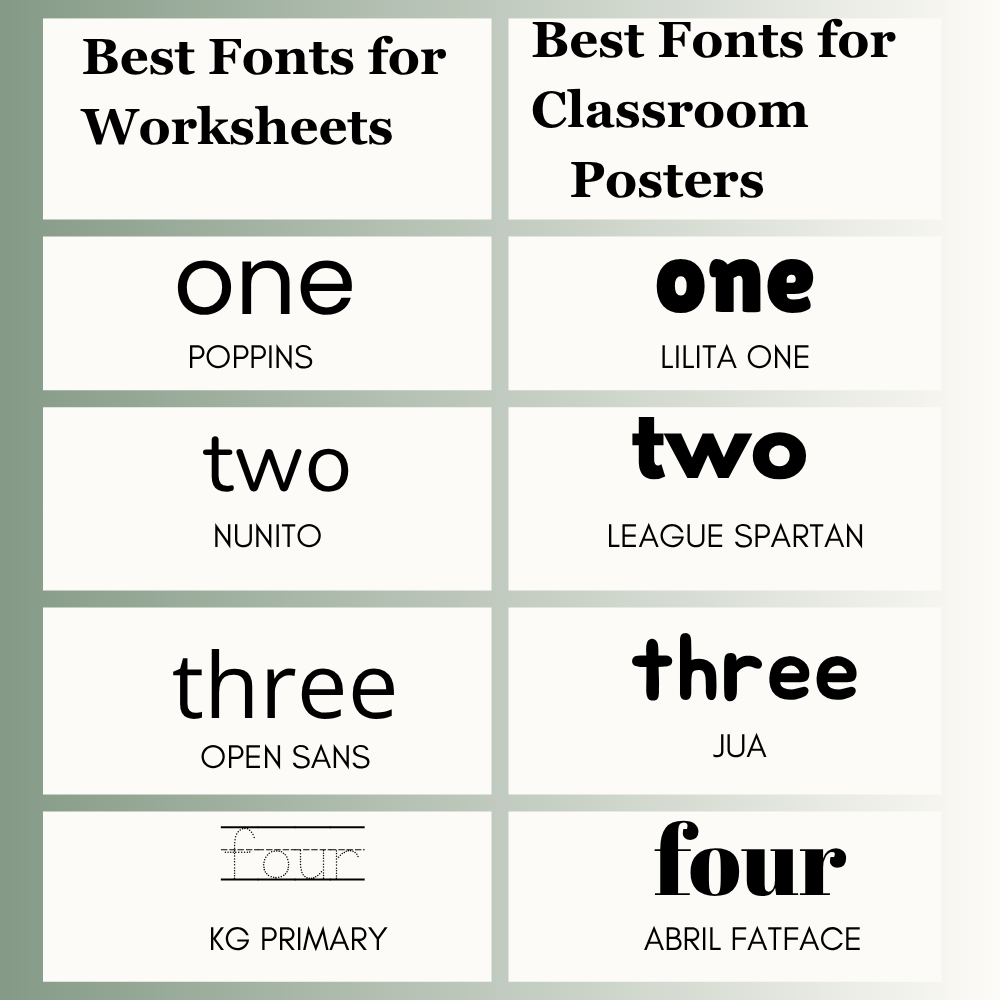
Best Fonts for Worksheets
Worksheets need clear text that students can read quickly. Clean fonts help learners focus on the task instead of struggling with letters.
Best picks:
- Poppins
- Nunito
- Open Sans
- KG Primary
These are strong choices for printables, homework sheets, and class activities.
Best Fonts for Classroom Posters
Posters should be visible from a distance. Bold fonts usually work best.
Best picks:
- Lilita One
- League Spartan
- Jua
- Abril Fatface
Use short titles and large text sizes for better impact.
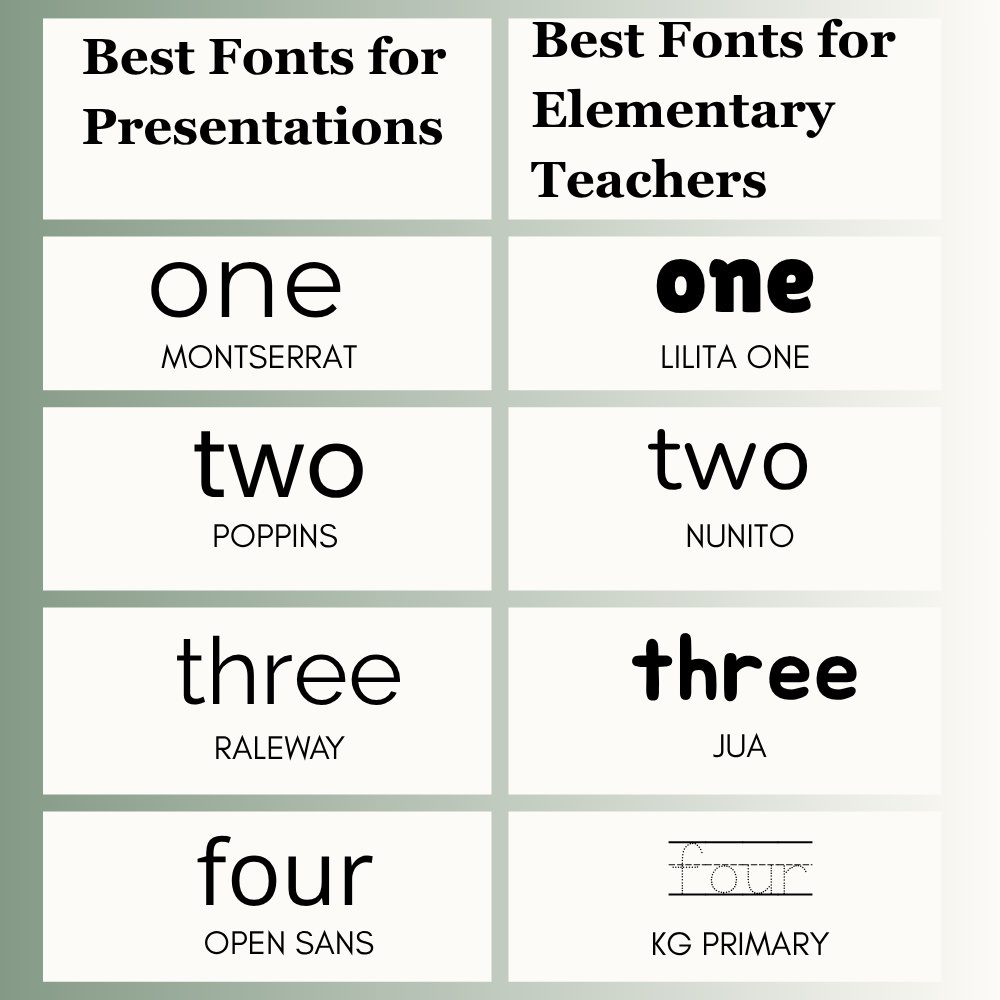
Best Fonts for Presentations
Slides should look neat on projectors, laptops, and smart boards.
Best picks:
- Montserrat
- Poppins
- Raleway
- Open Sans
These fonts help presentations feel clean and professional.
Best Fonts for Elementary Teachers
Young learners respond well to friendly and playful fonts.
Best picks:
- KG Primary
- Jua
- Lilita One
- Nunito
These fonts work well for preschool and primary classes.
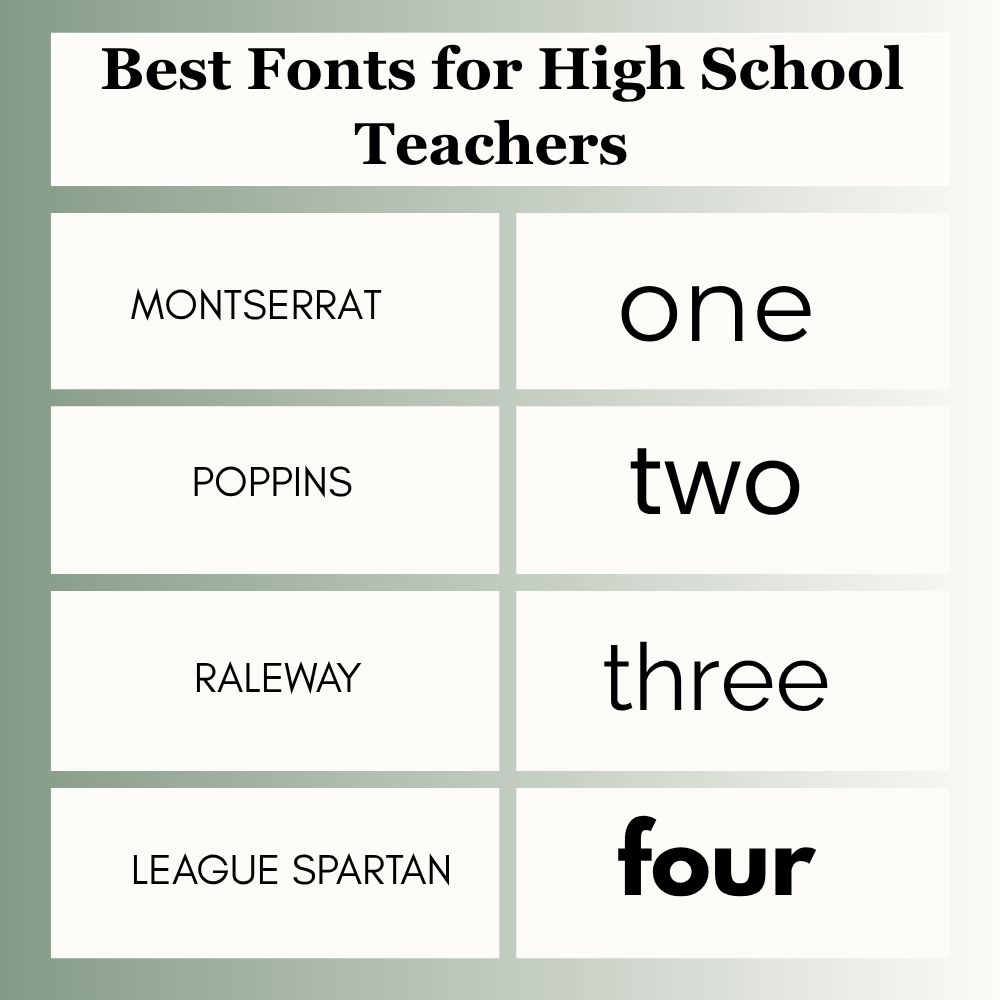
Best Fonts for High School Teachers
Older students usually prefer modern and cleaner styles.
Best picks:
- Montserrat
- League Spartan
- Poppins
- Raleway
These fonts suit academic and formal designs.
If you use Canva Pro, you may see more font options, brand kits, and extra style choices depending on your account and library updates.
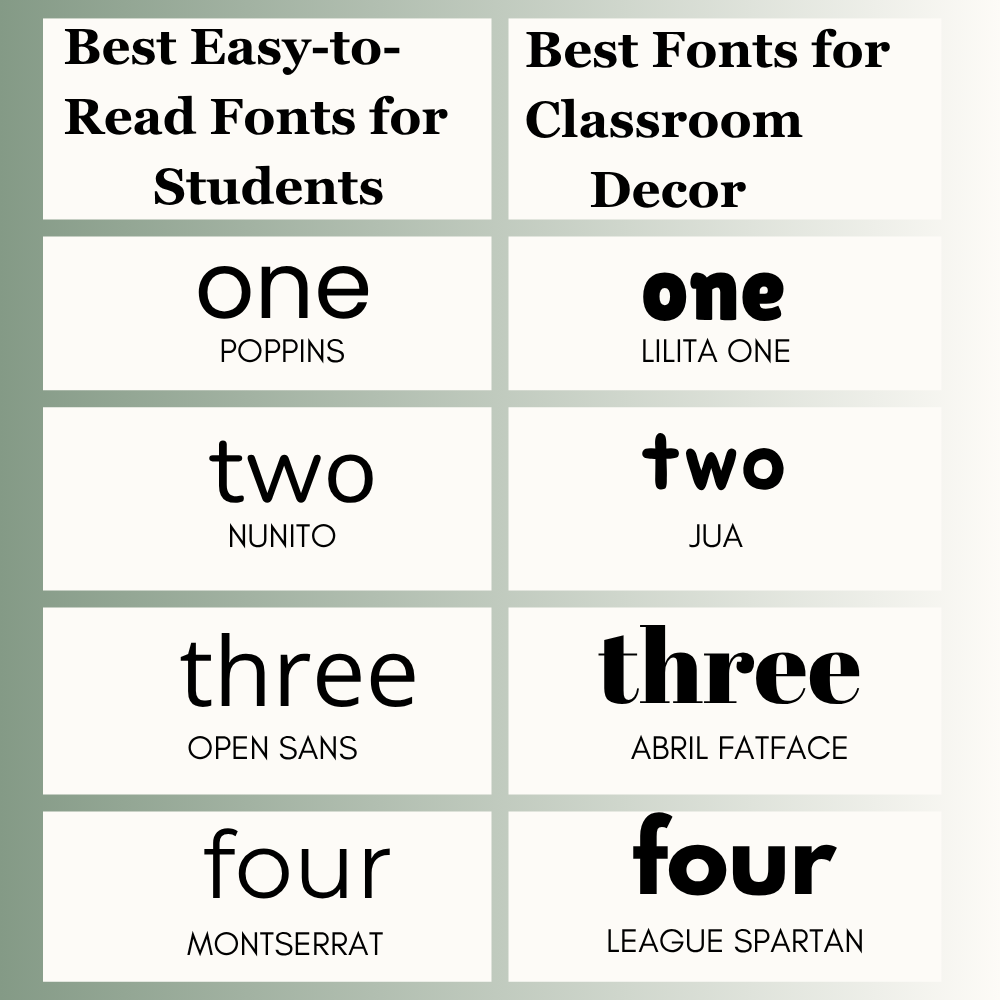
Best Easy-to-Read Fonts for Students
Some students learn better with simple and clear text. Easy-to-read fonts can support focus and understanding.
Best picks:
- Poppins
- Nunito
- Open Sans
- Montserrat
Use clean spacing and avoid overly decorative letters.
Best Fonts for Classroom Decor
Decor should feel welcoming and easy to notice.
Best picks:
- Lilita One
- Jua
- Abril Fatface
- League Spartan
These fonts work well for welcome boards, labels, wall displays, and class themes.